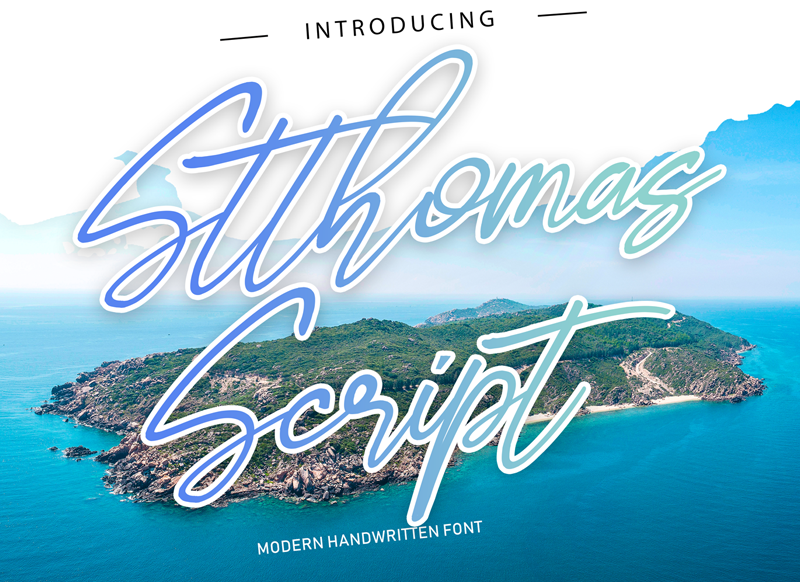
Font name: | Stthomas Script |
Stthomas Script Font is a stylish modern calligraphy font. It�s containing upper & lowercase characters, all punctuation and numerals. For those of you who are needing a touch of elegance and modernity for your designs, this font was created for you! You can buy full license from our store for more our fonts: https://gumroad.com/177studio if you have any problem, let we know by email: admin@177studio.com |